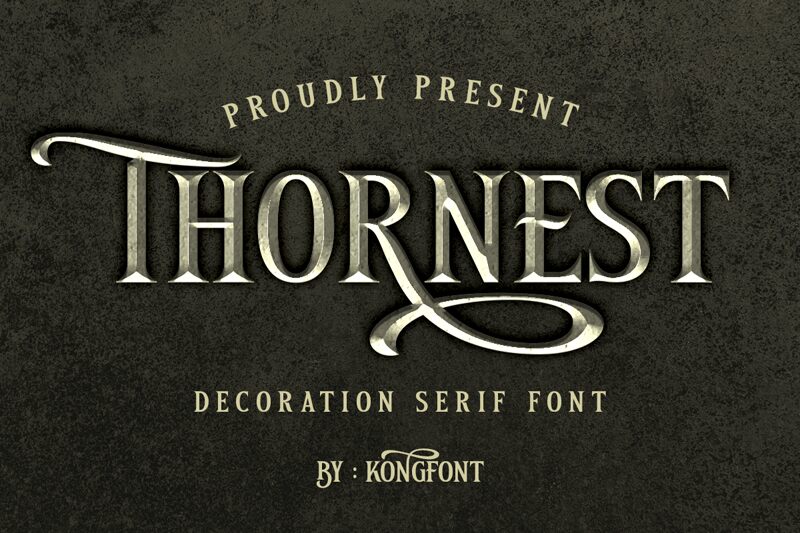
Thornest
Thornest, a creation by Kong Font, emerges as a striking display typeface that marries retro charm with contemporary flair. Its semi-bold weight exudes confidence, while the condensed width ensures an impactful presence without overwhelming the canvas. The Thornest font encapsulates an aesthetic that's both bold and nostalgic, making it an ideal choice for projects aiming to evoke a sense of vintage elegance or modernist edge.
With its distinctive character shapes and assertive stance, Thornest is perfectly suited for headlines, branding, and poster design where a touch of character is essential. Whether it's gracing the front page of a boutique's website or emblazoned across promotional materials for a music event, this font stands out with style and versatility. Its retro undertones offer designers a delightful nod to the past, while its clean execution ensures relevance in today’s design landscape.